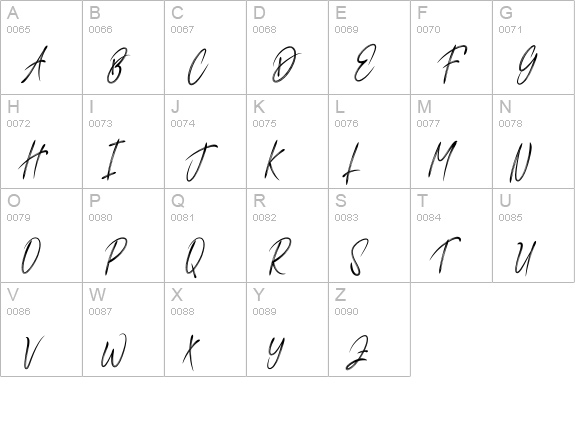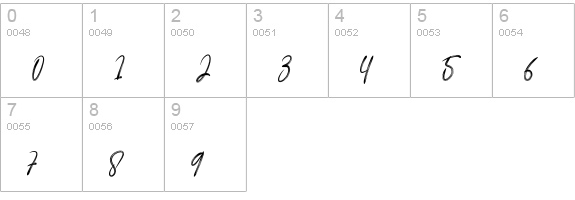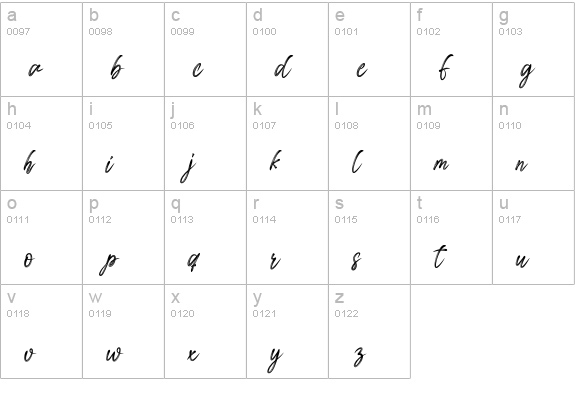
Handmade Full Of love Font Details
Handmade Full Of Love font is a charming and whimsical typeface that exudes warmth and creativity. Each character is lovingly crafted with a handmade touch, perfect for adding a personal and heartfelt feel to any design project. The playful curves and unique imperfections of this font give it a truly authentic and handmade look.